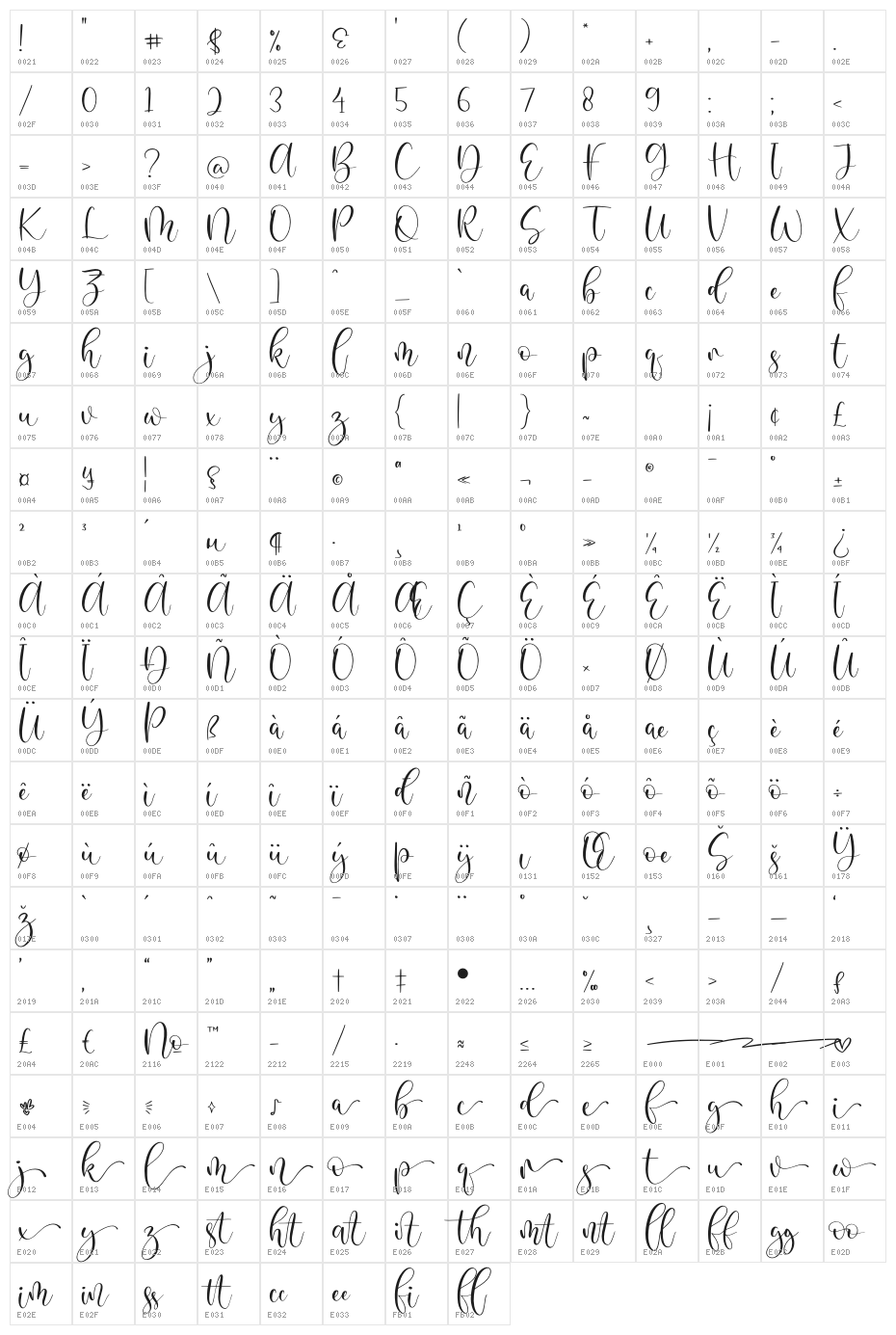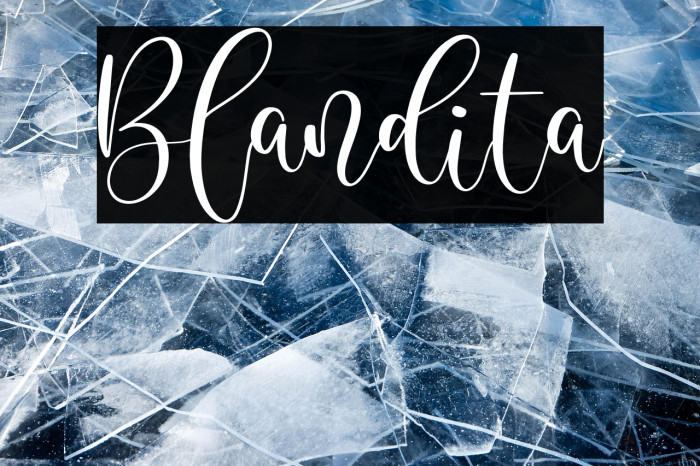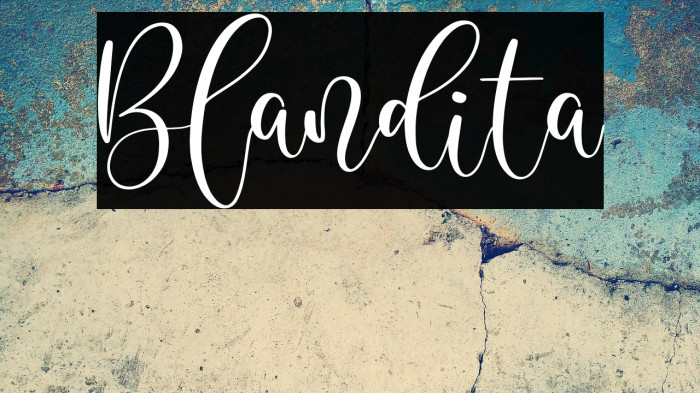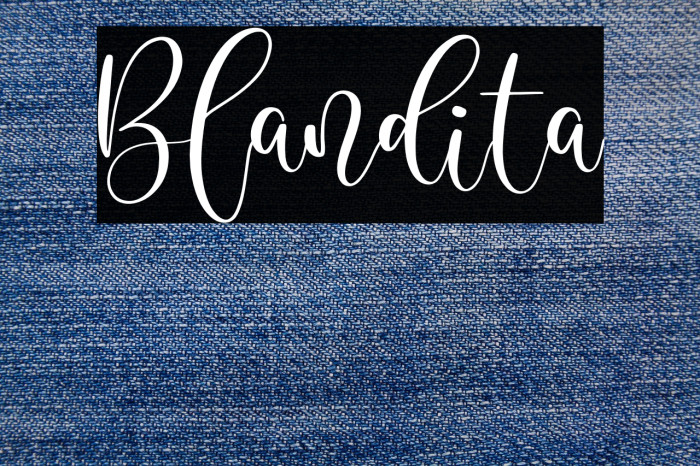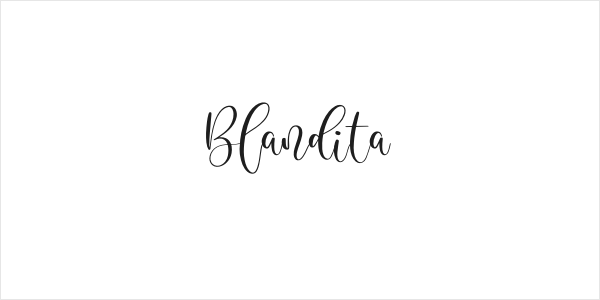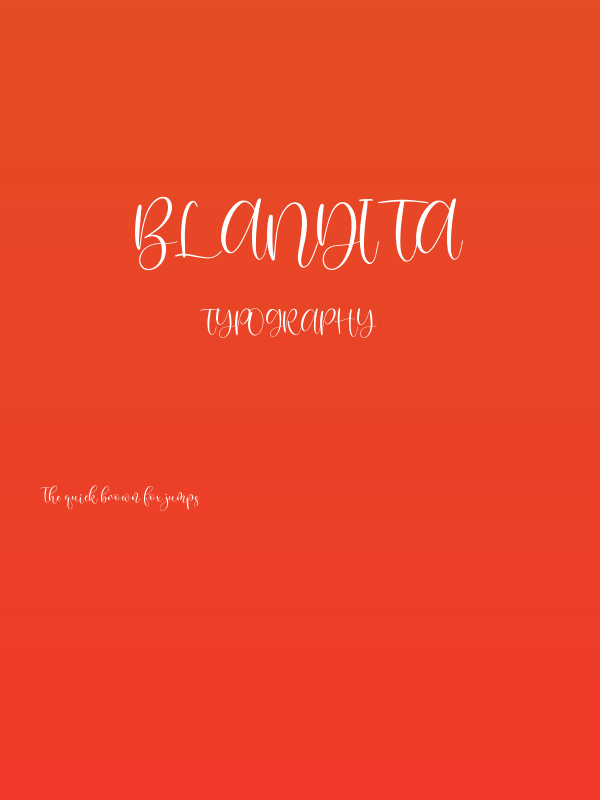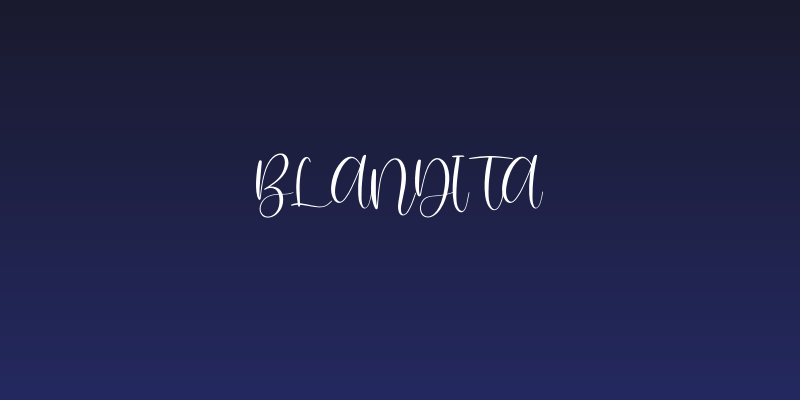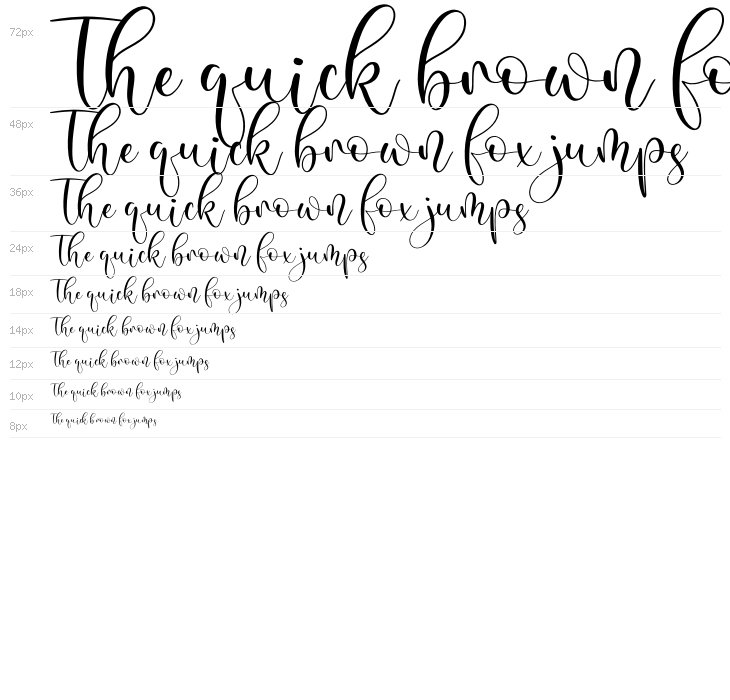
Blandita Font
Blandita Description
This font features an elegant and flowing script style, characterized by its smooth, cursive letterforms that convey a sense of grace and sophistication. The uppercase letters are tall and slender, with sweeping curves and delicate loops that give them a refined appearance. The lowercase letters maintain a consistent fluidity, with some characters featuring distinctive flourishes that add a touch of flair. The numerals are designed to complement the script style, with a similar emphasis on curves and a slightly playful demeanor. Special characters are seamlessly integrated, maintaining the overall aesthetic. This font is perfect for projects that require a touch of elegance and personality.
| Overall Style | Elegant, Decorative |
| Use Case | Headlines, Invitations, Branding |
| Proposed Projects | Ideal for wedding invitations, elegant branding, personal stationery, and decorative headlines. |